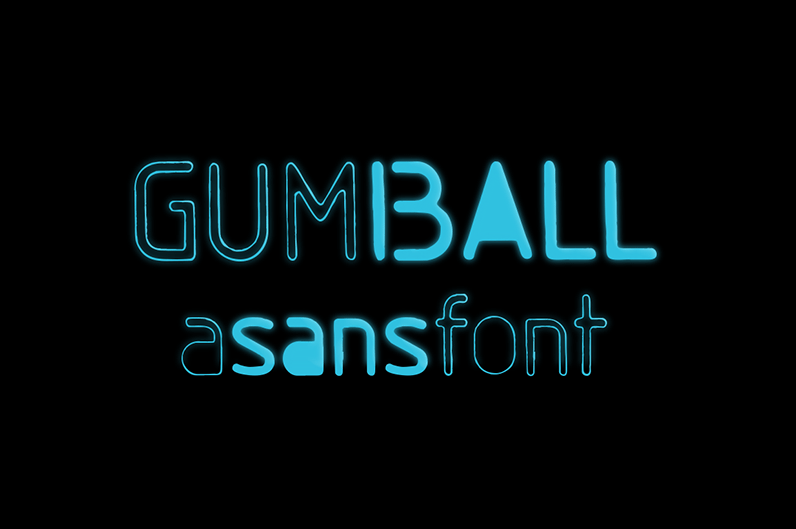
GumballSample-Blackout.otfNote of the authorGumball is a hand drawn font using an old letter ruler. It is a versatile sans serif font, perfect to make a statement in postcards, posters, titles, branding and packaging, etc.
The Gumball font family with four fonts: Gumball, Gumball Italic, Gumball Blackout, Gumball Blackout Italic